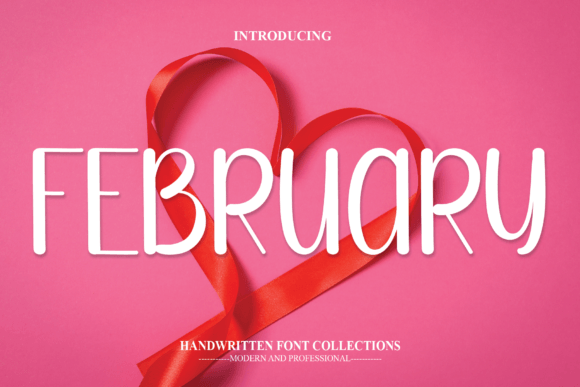
Discover the Sweet Charm of February Font
There’s nothing quite like the feeling of sitting down with a cup of coffee, a blank page, and a fresh idea brewing in your mind. For many designers, this is the moment when creativity sparks and magic happens. And for those who love handwritten fonts, the February Font is about to become your new best friend.
This lovely font is perfect for adding a personal touch to your designs, from wedding invitations to greeting cards. Its sweet and friendly demeanor makes it an ideal choice for projects that require a relaxed and approachable feel. Whether you’re a seasoned designer or just starting out, the February Font is a valuable addition to your toolkit. Its versatility and charm make it a must-have for anyone looking to add a little extra love to their designs.
February Font Key Features
- Font Family: February Font is a sans-serif typeface designed for modern and clean typography.
- Unique Characteristics: February Font features a unique blend of geometric and organic shapes, resulting in a distinctive and modern aesthetic.
February Font Review
Overall, I think the February Font has some lovely qualities that make it a nice addition to any design project. ✨ The font’s delicate and elegant feel is perfect for creating a romantic or whimsical atmosphere.
- Its light and airy feel makes it easy to read, even in smaller sizes.
- The subtle curves and rounded edges add a touch of sophistication.
- It pairs well with a variety of colors and backgrounds, making it versatile.
- ⚠️ The font may be a bit too delicate for headings or titles, where a bolder font is often preferred.
- ⚠️ It may not be the best choice for body text in formal or professional settings.
- ⚠️ The font lacks bold and italic variants, which can limit its use in certain design situations.
Overall, I think the February Font is a lovely addition to any design project that requires a delicate and elegant feel. While it may have some limitations, it’s perfect for creating a romantic or whimsical atmosphere.
Some tips for getting the most out of the February Font include:
– Using it for titles and headings to add a touch of elegance.
– Pairing it with bold fonts to create a striking contrast.
– Using it for invitations and event branding to add a touch of sophistication.
– Experimenting with different font sizes and styles to create a unique look.
Alternatives to February Font for Designers
Crimson Text is a serif font that is suitable for body text and is known for its readability. It has a classic look that works well for formal documents and books. Compared to February Font, Crimson Text has a more traditional feel and is often used for longer blocks of text. It’s a good choice when you need a clean and professional font.
Playfair Display is a high-end serif font that is perfect for titles and headings. It has an elegant and luxurious feel that works well for branding and marketing materials. Compared to February Font, Playfair Display is more decorative and has a more ornate feel. It’s a good choice when you need a font that makes a statement.
Lato is a sans-serif font that is highly legible and works well for body text. It has a clean and modern feel that makes it suitable for digital products and websites. Compared to February Font, Lato is more minimalist and has a more straightforward look. It’s a good choice when you need a font that is easy to read on screens.
Merriweather is a classic serif font that is suitable for body text and is known for its readability. It has a traditional feel that works well for formal documents and books. Compared to February Font, Merriweather has a more formal feel and is often used for longer blocks of text. It’s a good choice when you need a clean and professional font.